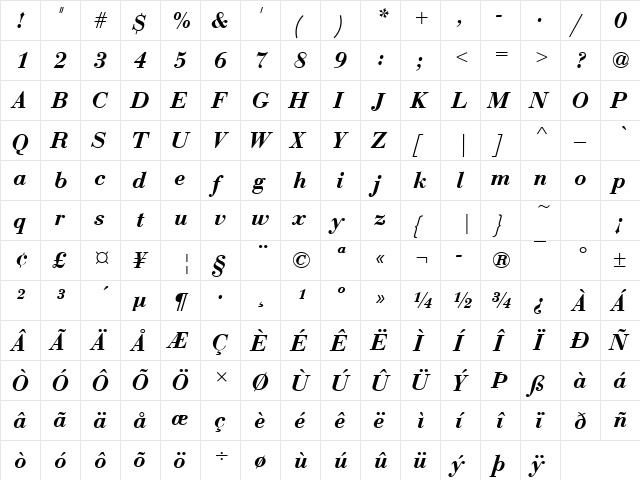
EuroBodTDemBol Italic
Design Context for EuroBodTDemBol Typeface
EuroBodTDemBol takes a measured approach to typography — its balanced proportions and neutral character make it a reliable workhorse for both digital and print work. The dynamic lean of this cut emphasises speed and emphasis in any layout.
Pro Tip: Use EuroBodTDemBol for emphasis, pull quotes, and subheadings where its slanted energy can add rhythm to the layout.